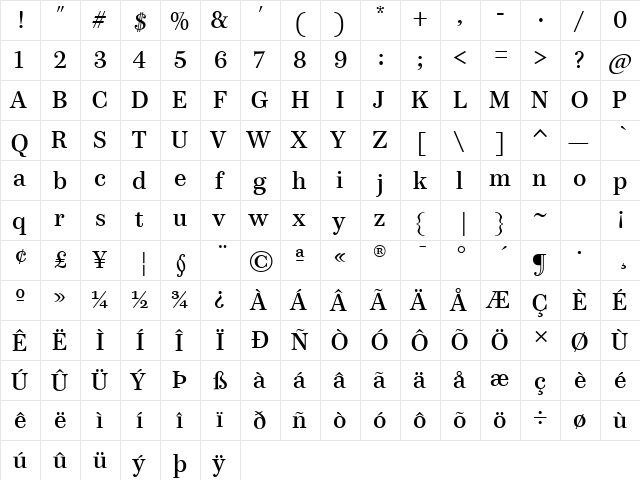
Paperback 24 TT Roman
| Foundry | House Industries |
| Designer | John Downer |
Design Context for Paperback 24 TT Typeface
Paperback 24 TT offers clean, dependable letterforms without strong stylistic allegiance, making it a practical choice for designers who need flexibility.